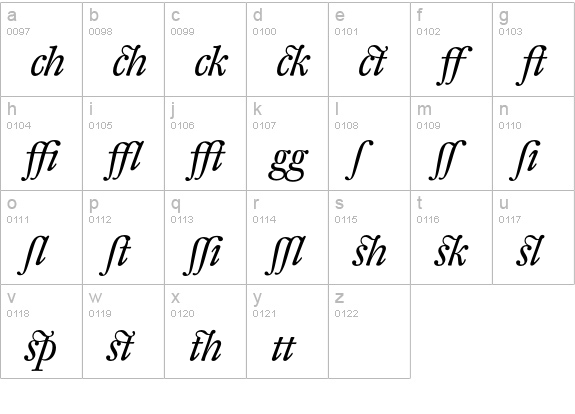
DTLFleischmannTAlternate-Italic is a distinctive, italic variant in the DTLFleischmannTAlternate typeface family \xE2\x80\x94 well suited to design and typography projects.
DTLFleischmannTAlternate-Italic is a beautifully designed font that exudes elegance and sophistication. Its slender and stylish appearance makes it perfect for adding a touch of class to any project. This italic variant of the DTLFleischmannTAlternate typeface family brings a sense of creativity and flair to your designs. What makes DTLFleischmannTAlternate-Italic even more appealing is that it is available for free download at FontsMarket.com. This means you can easily access this high-quality font and use it in your personal or commercial projects without any cost. Embrace the beauty and versatility of DTLFleischmannTAlternate-Italic today and elevate your designs to the next level.